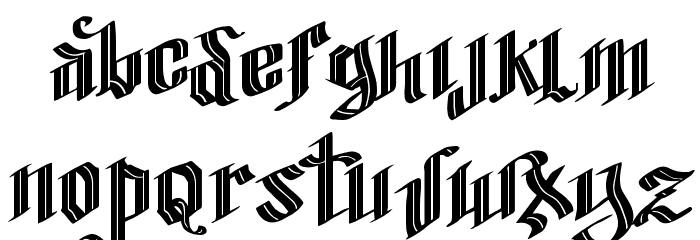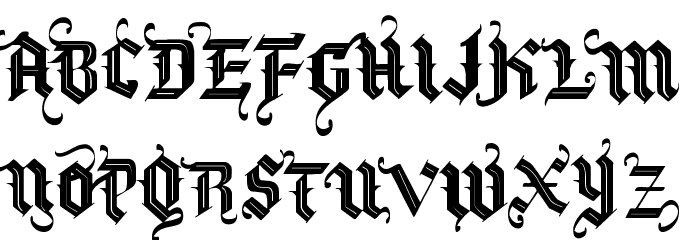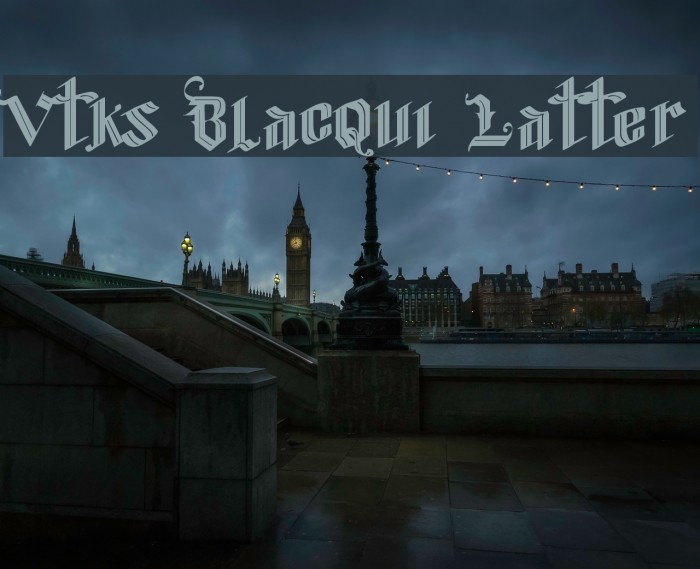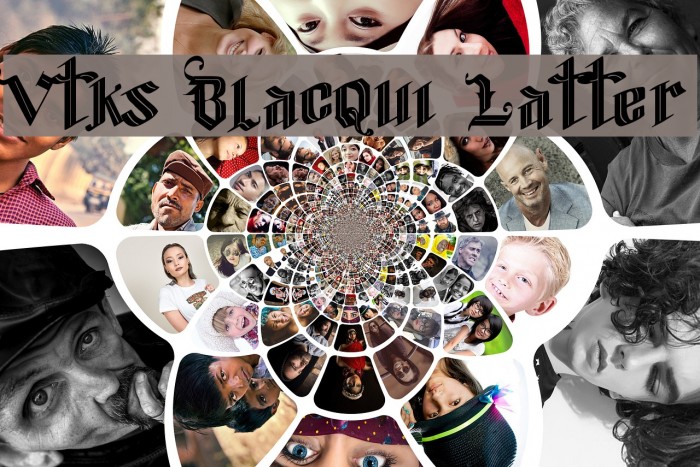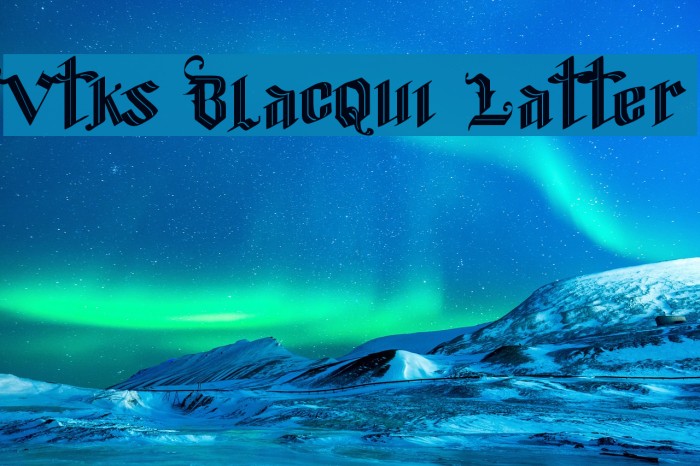
Vtks Blacqui Latter Font
This font features a bold and intricate design reminiscent of traditional blackletter styles. The characters are highly decorative, with sharp angles and elaborate serifs that give it a gothic and medieval appearance. The uppercase and lowercase letters maintain a consistent style, with a strong emphasis on vertical strokes and ornate detailing. This font is designed to capture attention with its dramatic flair and historical aesthetic, making it suitable for projects that require a touch of elegance and formality. The numerals and special characters are crafted to match the overall theme, ensuring a cohesive look across all text elements.
A bold, gothic blackletter font with intricate, decorative details.
- Proposed Projects: Ideal for use in branding, posters, book covers, and any design that seeks a historical or gothic theme.
- Overall Style: Gothic, Decorative